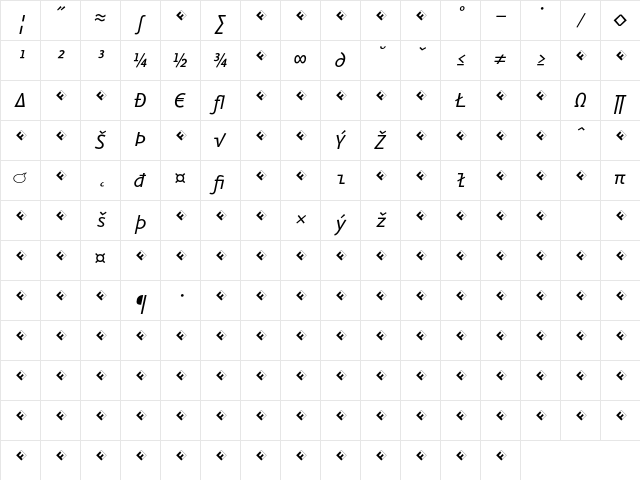
Complete Eureka Mono Exp Italic glyph index. Displaying only characters natively supported by Eureka Mono Exp Italic font.
Eureka Mono Exp uses fixed-width spacing throughout, giving it the structured, systematic character associated with coding environments and technical documentation. The slanted form adds forward momentum and visual energy.